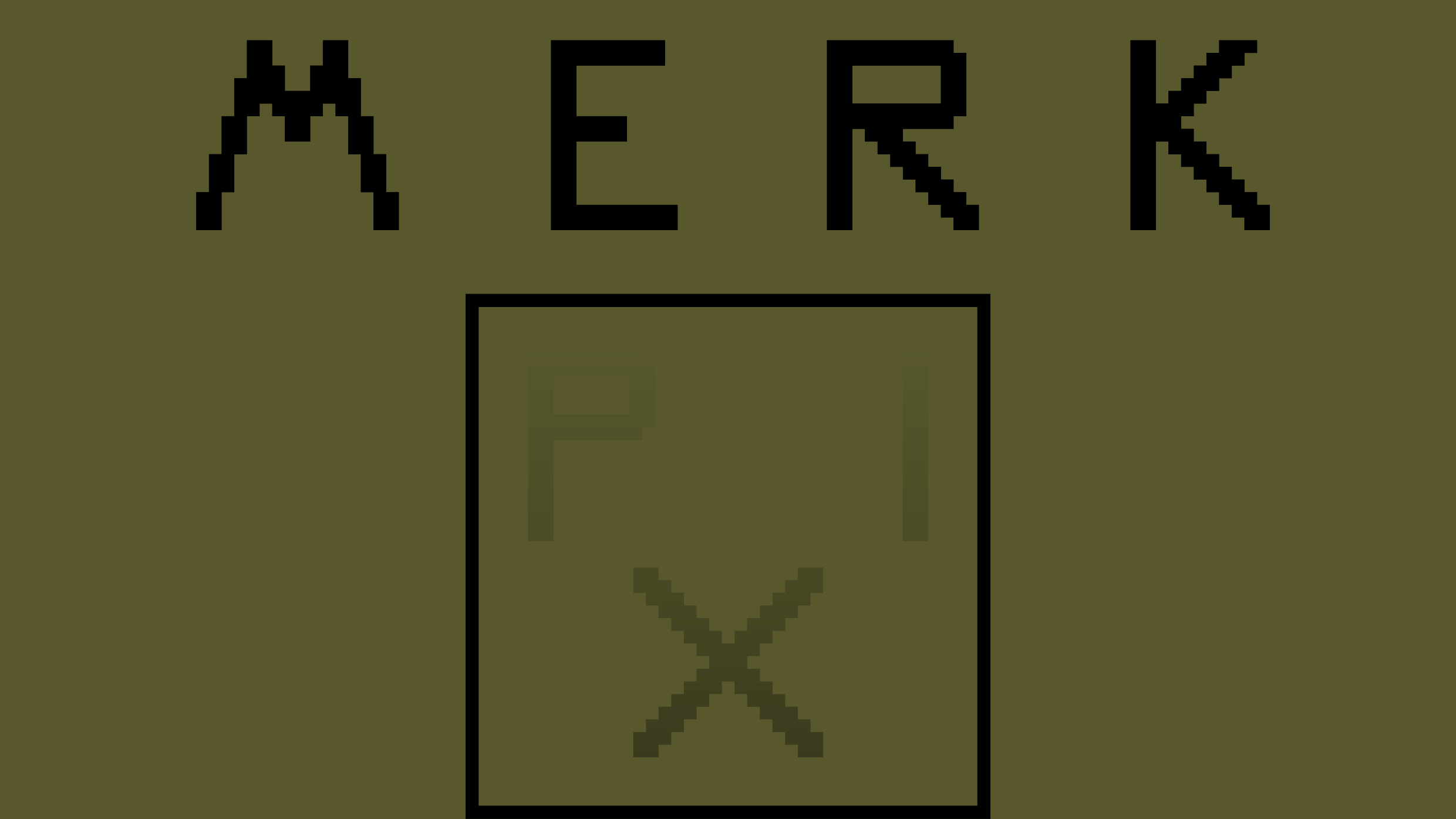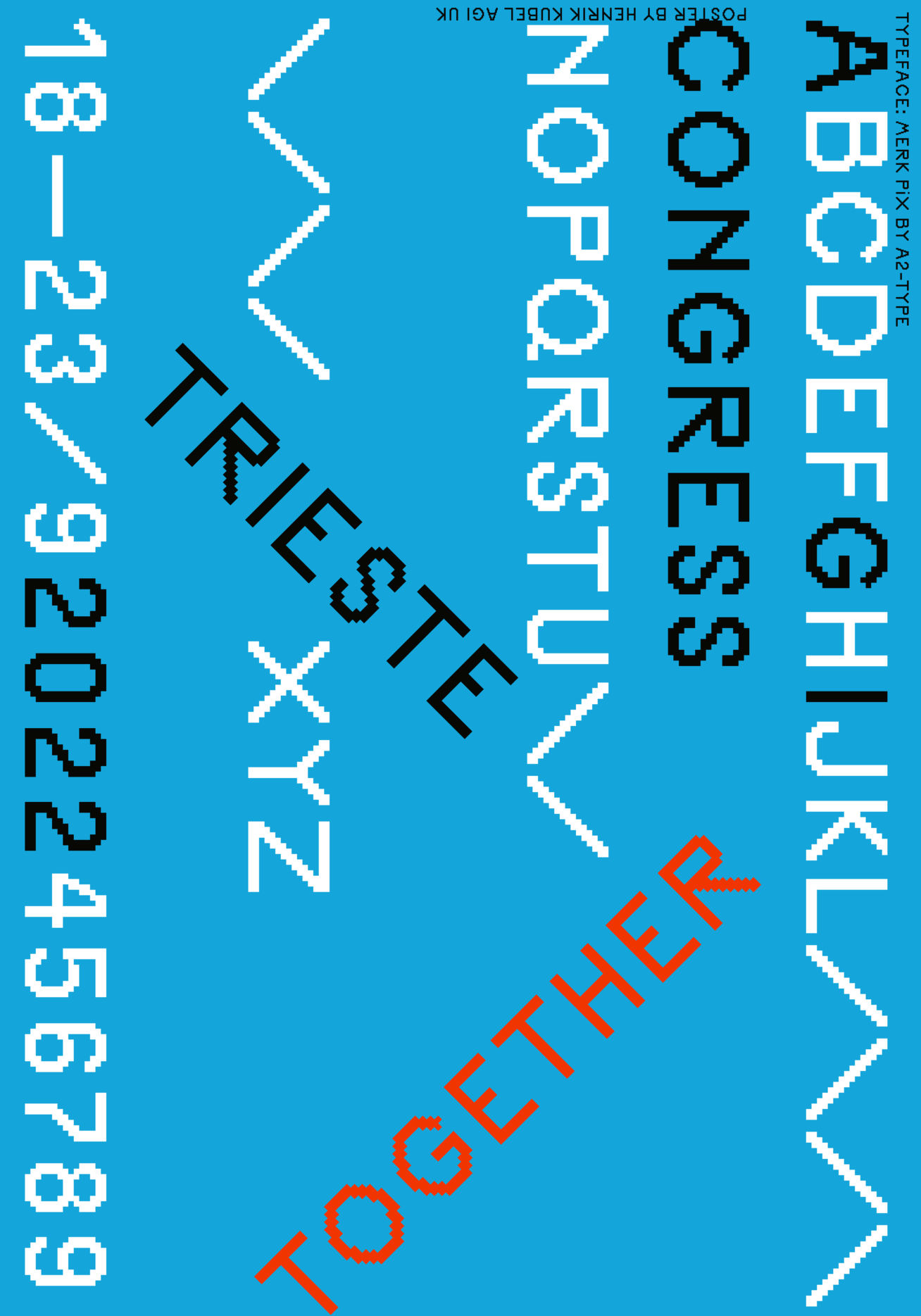
Merk Pix is inspired by the Dollfus-Mieg & Cie ‘Merk Stich’ instruction alphabet for linen stitching. The original specimen page features a limited character set of uppercase letters only – we used our imagination to create the matching lowercase letters, numbers, sorts, and everything else! This handmade gem has now been engineered into a contemporary typeface in multiple styles. Check out MERK DOT: an associated dot font available in 3 weights, Light, Medium, and Bold.
MERK PiX MERK PIX Bold